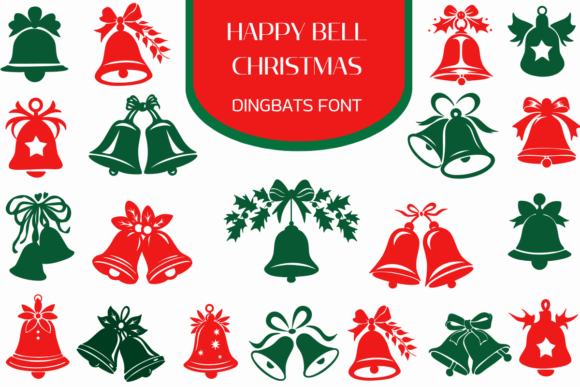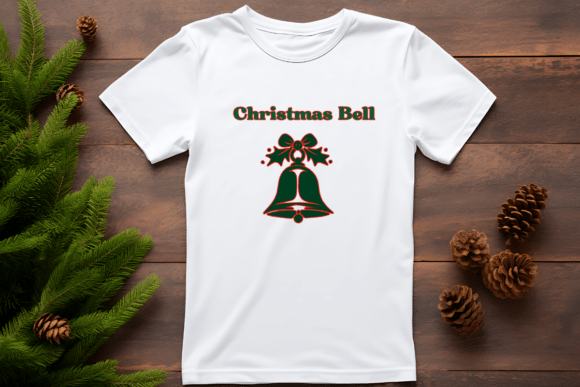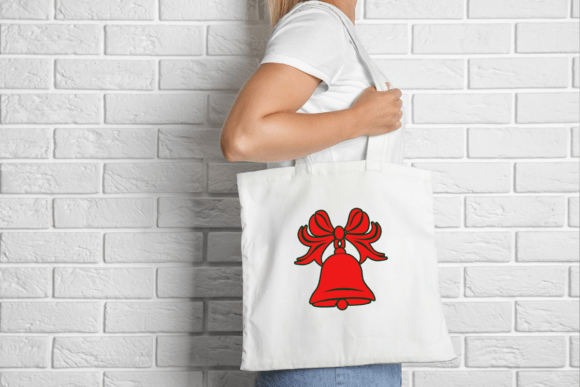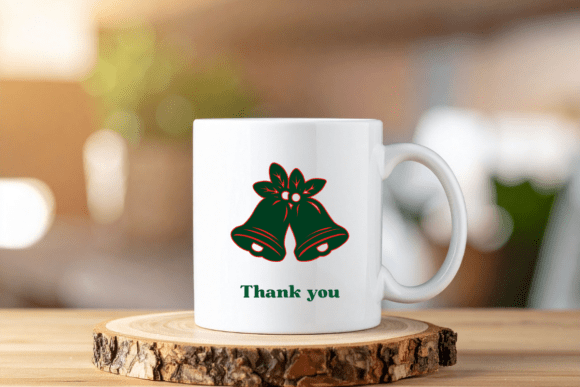
Ring in the Holiday Spirit with Happy Bell Christmas Font
As the snowflakes start to fall and the fireplace crackles to life, I always find myself in the mood for creating festive holiday designs. There’s something magical about combining bright colors, cheerful patterns, and a dash of winter wonder. This year, I stumbled upon a font that’s been spreading joy to designers and crafters alike: the Happy Bell Christmas Font.
This delightful dingbat font is a treasure trove of Christmas bell icons, bows, holly, and seasonal decorations, making it perfect for holiday cards, gift tags, scrapbooking, and more. Whether you’re a seasoned graphic designer or a crafty enthusiast, the Happy Bell Christmas Font is a valuable addition to your design toolkit. Its charming characters will add a touch of warmth and whimsy to your projects, making them truly special.
Key Features of Happy Bell Christmas Font
- Font Family: Happy Bell Christmas Font is a unique, festive font designed specifically for Christmas and holiday-themed designs.
- Unique Characteristics: The font features a playful, bell-shaped design element, with intricate details and ornaments that evoke a sense of festive cheer.
Happy Bell Christmas Font Review
I recently had the chance to work with the “Happy Bell Christmas Font” and I have to say, it’s a unique addition to any holiday design project. ✨ The font’s playful, whimsical feel is perfect for creating a festive atmosphere and the bold lines add a touch of sophistication. ✨ The font’s versatility is also a major plus, as it can be used for a wide range of applications, from gift tags to social media graphics.
One of the things I appreciate about this font is its ease of use. The font is highly customizable, allowing you to adjust the size, color, and spacing to fit your design needs. ✨ The font also includes a range of special characters, including ornaments and symbols, which add an extra layer of festivity to your designs.
- ⚠️ The font may not be suitable for projects that require a more traditional or classic holiday feel, as its playful style may clash with more serious or formal designs.
- ⚠️ The font’s bold lines can sometimes make it difficult to read, particularly in smaller font sizes or when used in combination with other bold elements.
Overall, I’m really impressed with the “Happy Bell Christmas Font”. It’s a fun and creative addition to any holiday design project, and its ease of use makes it a great choice for designers of all skill levels. ✨ With a little bit of creativity and experimentation, this font can help you create truly unforgettable holiday designs.
Getting the Most Out of the Font
For optimal results, pair the Happy Bell Christmas Font with complementary colors and design elements. Experiment with different font sizes and styles to create visual interest. Use the font for festive occasions like Christmas, New Year’s Eve, or holiday parties.
The Happy Bell Christmas Font is perfect for:
- Christmas invitations and cards
- New Year’s Eve party invitations
- Holiday menus and recipes
- Christmas-themed social media posts